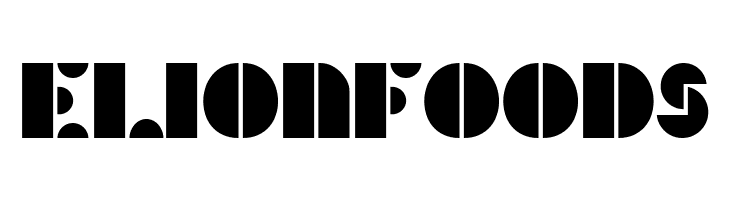
( Fonts by billyargel.blogspot.com - Billy Argel )
A bold, futuristic font with geometric shapes and cut-out elements.
( Fonts by Have Fun with Fonts )
A bold, geometric font with Art Deco influences, featuring unique circular patterns.
( Fonts by Steve Ferrera )
A bold, shadowed font with gothic and spooky elements, perfect for Halloween themes.
( Fonts by Grzegorz l - www.glukfonts.pl )
The image contains decorative shapes, not a valid font.
( Fonts by ARRF Designs )
A bold, slanted font with dynamic curves and a modern aesthetic.
A whimsical and decorative font with playful embellishments and dynamic shapes.
Ornamental and flourish-based decorative glyph set.
( Rafael Saldaña - ikarusmedia.deviantart.com/gallery/ https://www.dafont.com/es/dotgrid.font )
A decorative font inspired by intricate Mayan glyphs, featuring bold and detailed designs.